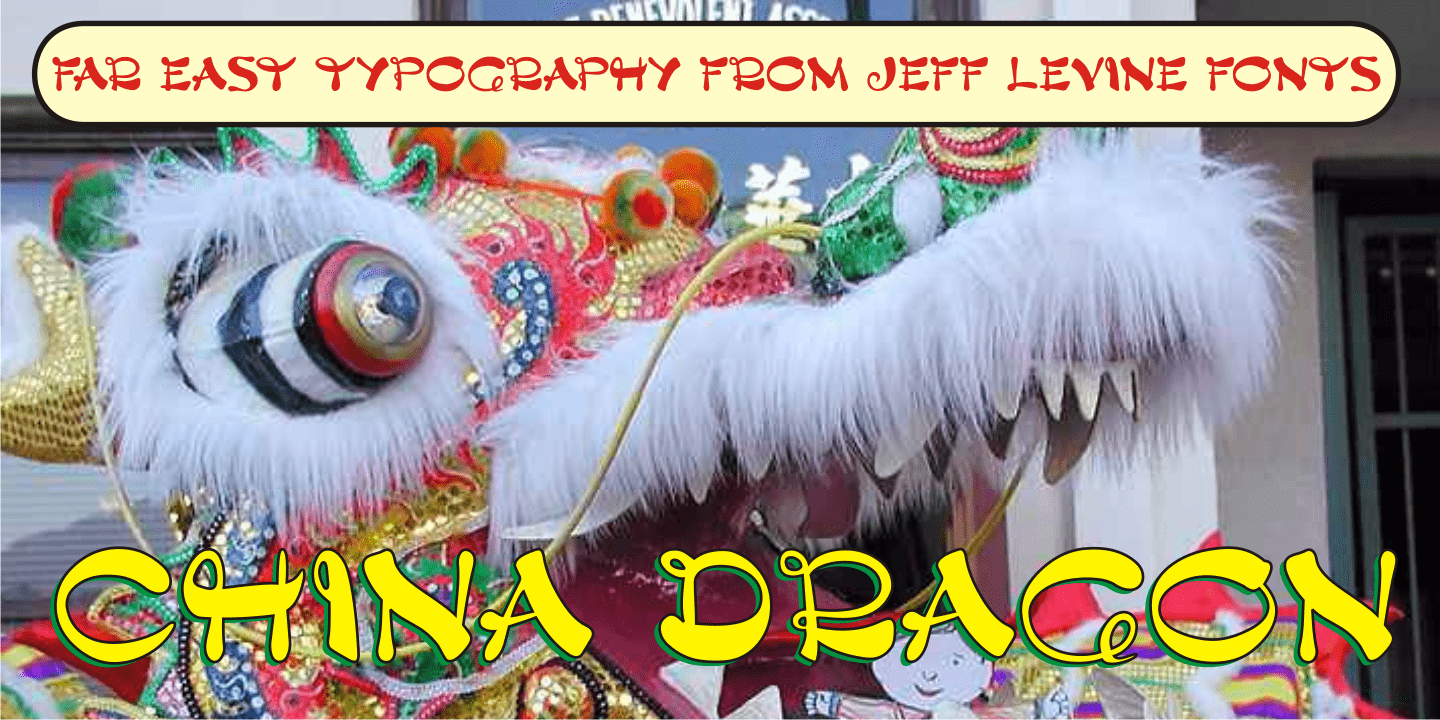
China Dragon
China Dragon JNL was inspired by a vintage letterpress logo cut on sale in an online auction. The logo for The China Dragon restaurant (presumably from the 1950s or 1960s) had a wonderfully eclectic hand-lettered look.
Some of the original characters were modified slightly to conform with the ones created for the remainder of the typeface, but the original styling remains intact.
The unique design of this font allows it to adapt well to Art Nouveau or Mideastern project styles.